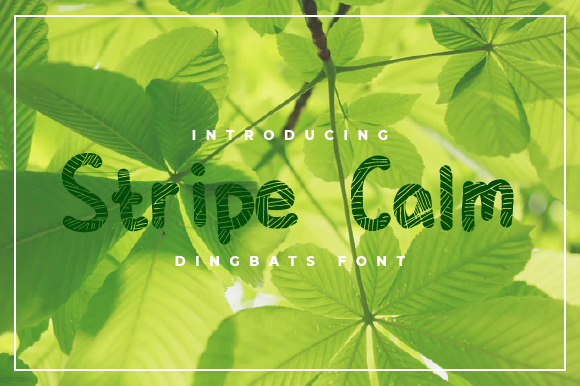
Prepare to be mesmerized by Stripe Calm, the decorative font that will transform your designs into masterpieces of tranquility. Its graceful lines and elegant curves evoke a sense of serenity that will captivate your audience. Whether you're crafting logos, invitations, or social media posts, Stripe Calm adds a touch of sophistication and timeless beauty.
This distinctive font is perfect for creating eye-catching headlines, soothing body text, and alluring social media captions. Its versatility extends to a wide range of projects, from personal blogs and portfolios to corporate presentations and wedding invitations.
Experience the calming effect of Stripe Calm as you immerse yourself in its flowing strokes. Each letter is meticulously crafted to convey a sense of peace and harmony, making your designs not just visually appealing but also emotionally resonant.
Unleash your inner artist with Stripe Calm and let your designs radiate tranquility and grace. Its unique character will elevate your projects to new heights, leaving a lasting impression on your audience.